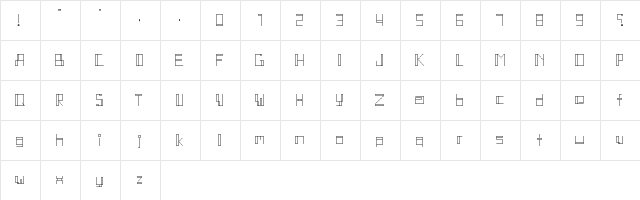
Orbit_01 Regular
| Designer | dirtytea |
| Year | 2010 |
Design Context for Orbit_01 Typeface
Orbit_01 offers clean, dependable letterforms without strong stylistic allegiance, making it a practical choice for designers who need flexibility.